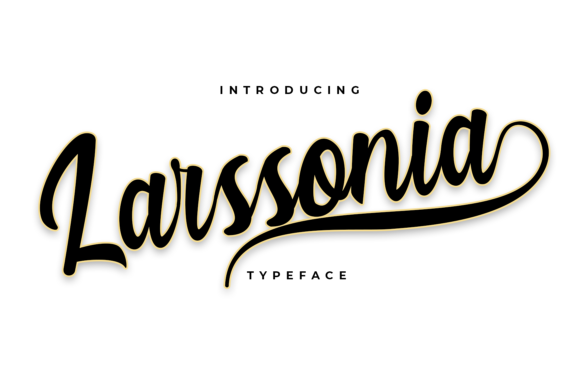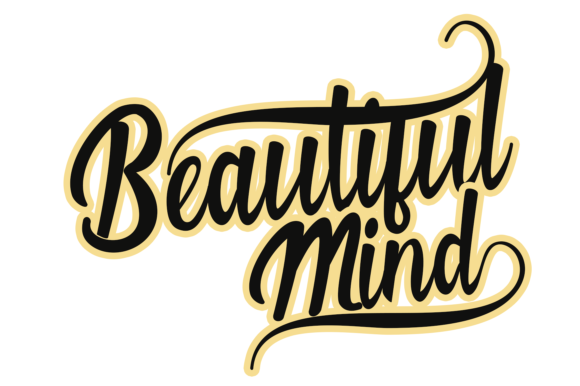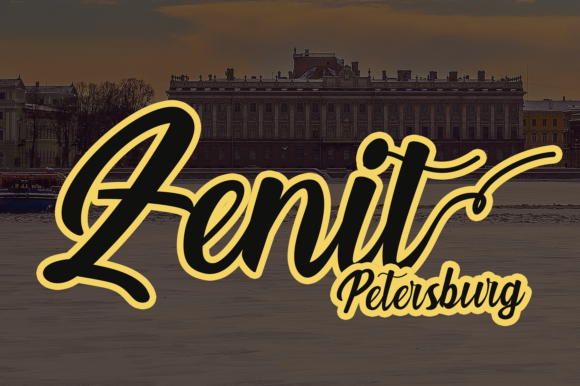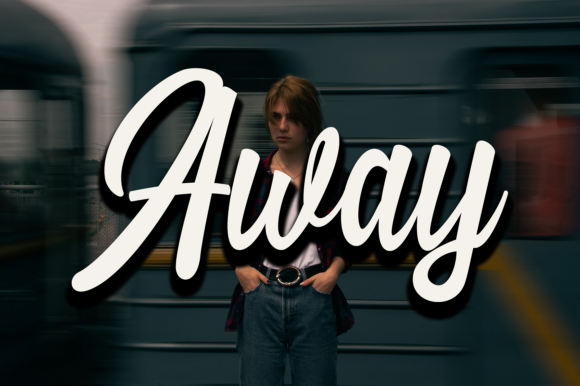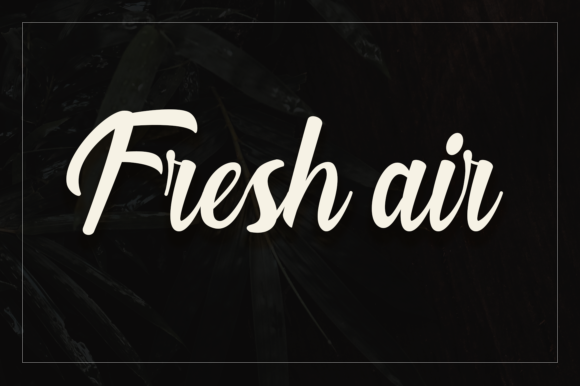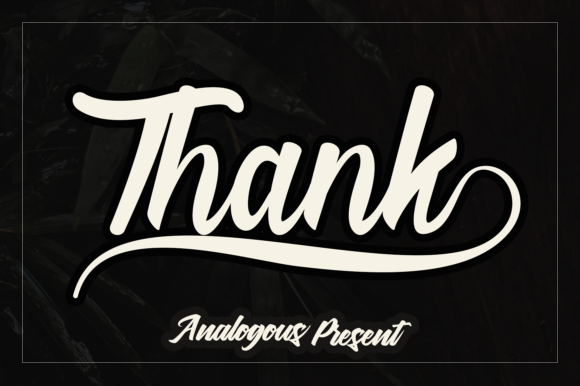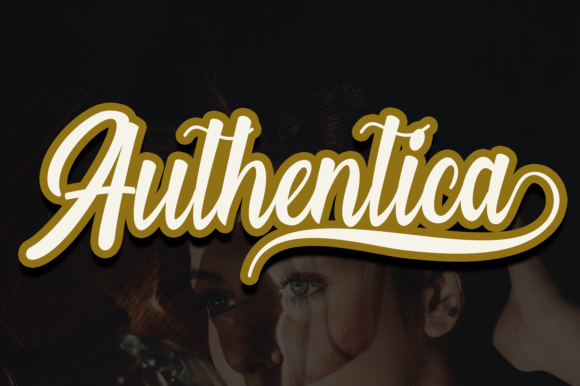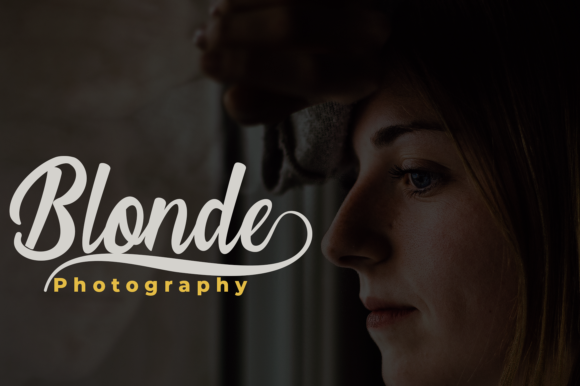
Larssonia Font
About Larssonia Font
Larssonia is a smooth and organic script with an elegant vibe. Get inspired by this one-of-a-kind handwritten font!